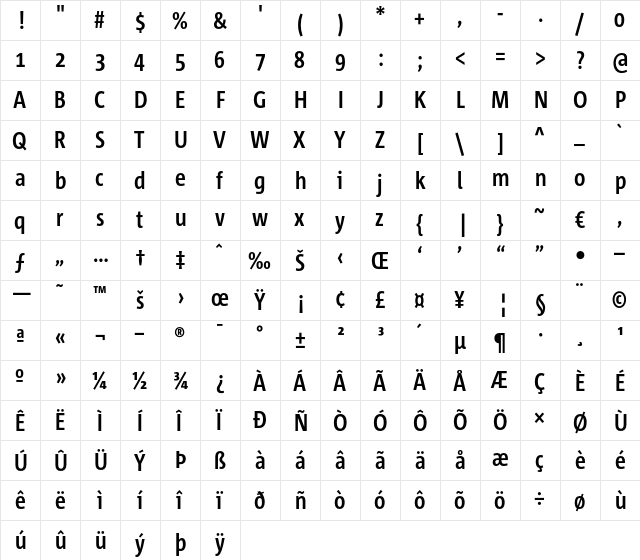
Corpid Cd Bold
Design Context for Corpid Cd Typeface
Corpid Cd is a composed and adaptable typeface that performs quietly and consistently across a wide range of design contexts. The heavy weight commands attention and anchors typographic hierarchies.